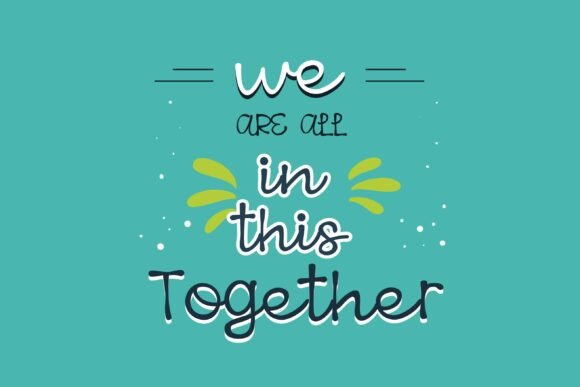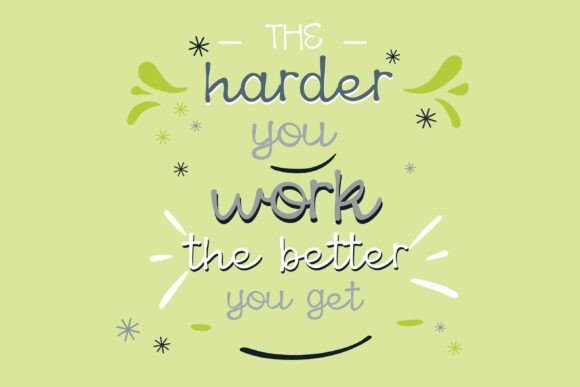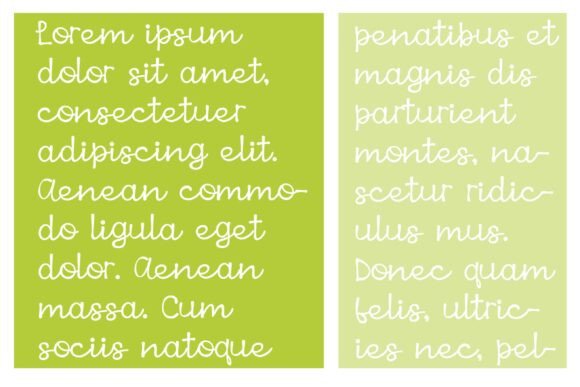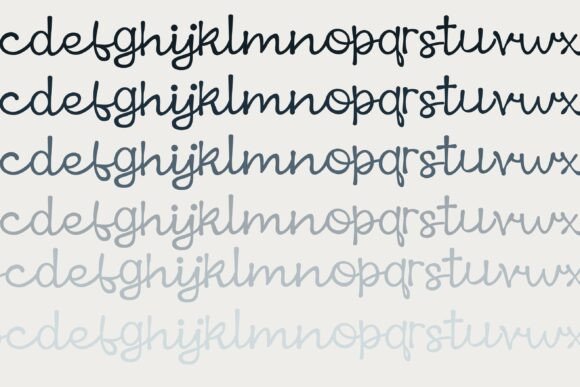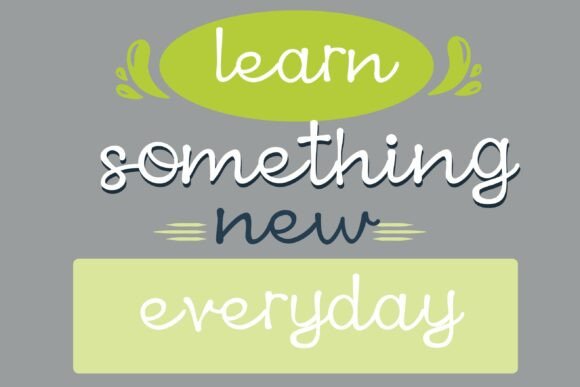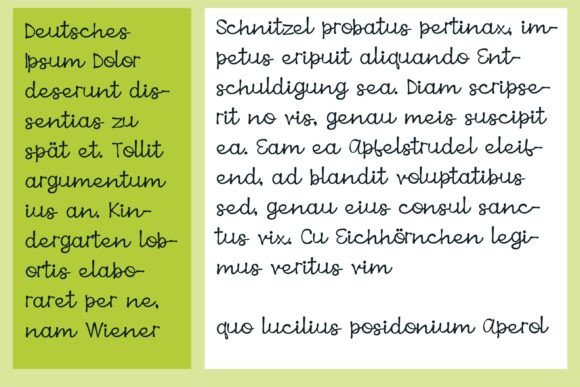
Introduction to Snappiness Font
Do you remember the moment when you finally found the perfect font for your creative project? The one that makes your design pop, brings a smile to your face, and sets the tone for your entire brand? For many designers, that moment is elusive, but with the Snappiness Font, you might just find yourself skipping with joy.
This delightful handwritten script font is more than just a pretty face; it’s a game-changer for designers looking to add a touch of whimsy and playfulness to their work. With its bouncy rhythm and friendly curves, Snappiness Font is perfect for creating high-quality designs that stand out from the crowd. Whether you’re working on a children’s book, classroom poster, or lighthearted branding project, this design resource is sure to bring a smile to your face and delight your audience.
Key Features of Snappiness Font
- Unique, modern design suitable for creative projects and design resources
- Designed to add a touch of snappiness to your design, perfect for digital and print media
Honest Review: Snappiness Font
As a designer, I’m always on the lookout for high-quality design resources to elevate my creative projects. Recently, I had the chance to try out the Snappiness Font, and I’m excited to share my honest review with you.
- ✨ The Snappiness Font offers a sleek and modern design that’s perfect for contemporary branding and design projects.
- ✨ The transparent background feature allows for seamless integration with various design elements and backgrounds.
- ⚠️ The font family is relatively small, which may not be suitable for large-scale designs or projects that require multiple font styles.
- ⚠️ The font may not be as versatile as some other popular font options, which could limit its use in certain creative projects.
The Snappiness Font is ideal for a variety of design projects, including:
Getting the Most Out of Snappiness Font
To get the most out of Snappiness Font, consider the following tips:
- Use it with a transparent background for a clean and modern look.
- Pair it with other design elements, such as images and graphics, to create a visually appealing design.
- Experiment with different font sizes and colors to add emphasis and visual interest.
Alternatives to Snappiness Font
Great Vibes Font is a beautiful, handwritten font perfect for creative projects. It features elegant, flowing lines and a high level of sophistication. This font is ideal for use in wedding invitations, greeting cards, and other design projects where a touch of elegance is required.
Great Vibes Font is a free download and can be used for both personal and commercial projects. While it has a similar feel to Snappiness Font, it is more refined and polished, making it a great choice for high-end design projects.
Pacifico Font is a stunning, modern script font that is perfect for use in creative projects. It features a high level of sophistication and a unique, elegant feel. This font is ideal for use in branding, marketing materials, and other design projects where a touch of sophistication is required.
Pacifico Font is a free download and can be used for both personal and commercial projects. While it has a similar feel to Snappiness Font, it is more modern and sleek, making it a great choice for contemporary design projects.